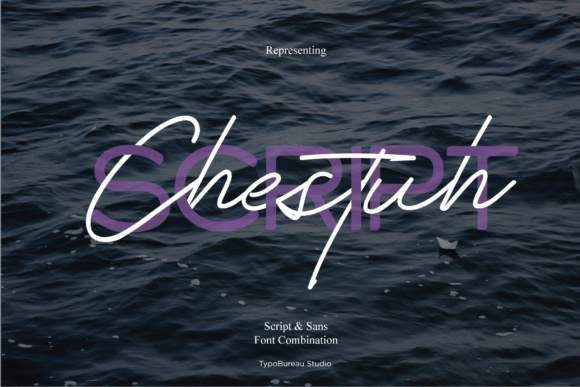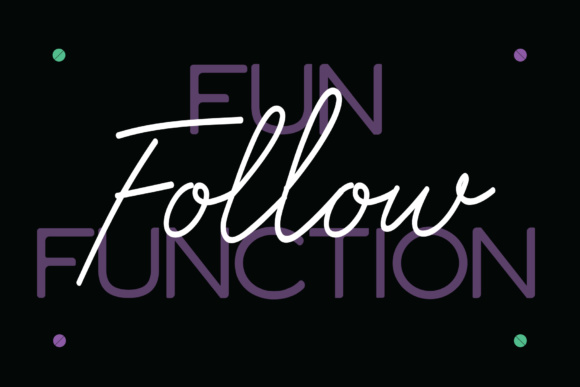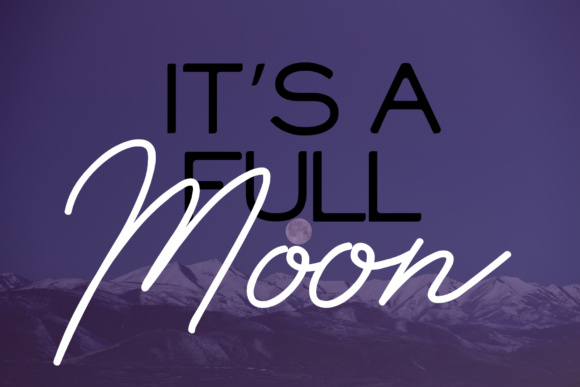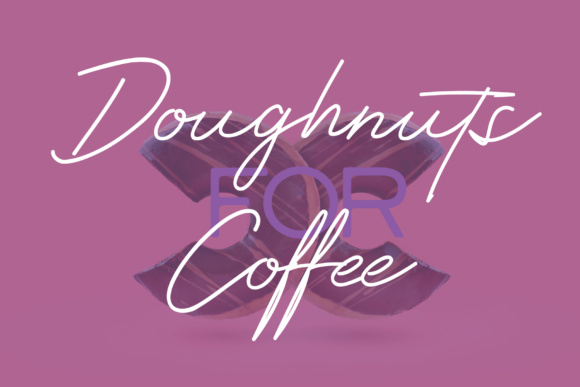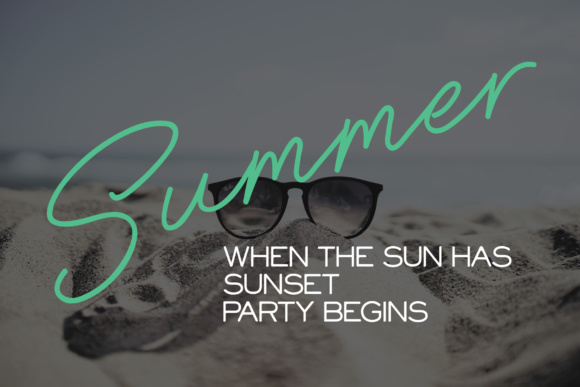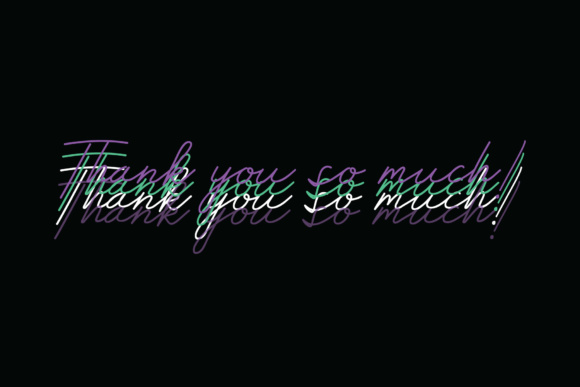
Chestuh Duo Font
About Chestuh Duo Font
Chestuh is a font duo combination of script and sans serif typeface, inspired by a fellow type designer who has created amazing typefaces.